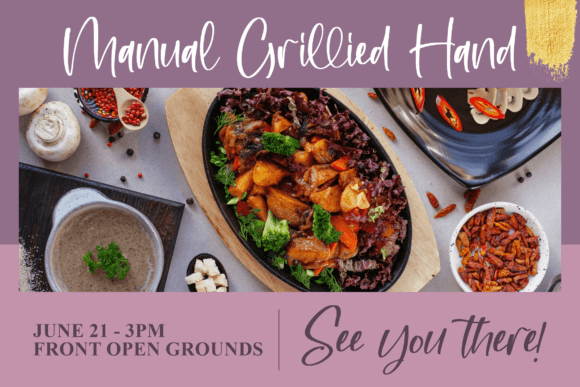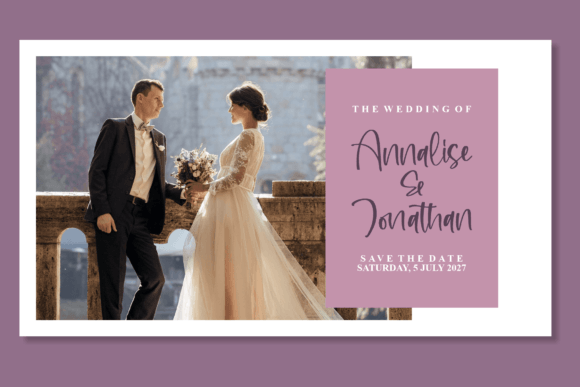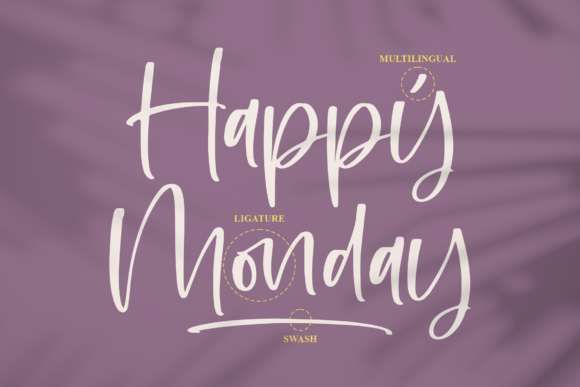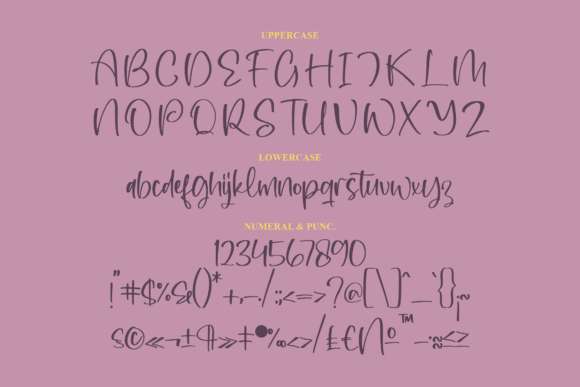
About Most Somedays Font
“Most Somedays” is a charming and elegant handwritten signature script font that exudes a sweet and romantic vibe. Its cursive and flowing strokes add a touch of grace to any design, making it a perfect choice for a wide array of creative projects. This font’s gentle and joyful demeanor enhances the overall aesthetic, creating a sense of warmth and intimacy.
Whether used for branding, logos, wedding-related materials, greeting cards, fashion projects, lookbooks, or marketing promotions, “Most Somedays” imparts a sense of sophistication while maintaining a casual and approachable appeal. Its versatility allows it to effortlessly transition from formal to informal contexts, making it suitable for a variety of design applications.
The font’s PUA encoding grants you access to a plethora of amazing glyphs and ligatures, providing creative freedom to customize your designs with unique and intricate elements. By incorporating these special characters, you can enhance the visual appeal of your projects and infuse them with a personalized touch.
“Most Somedays” is the perfect choice when you want to add a fancy yet casual elegance to your creative endeavors. Its romantic and joyful essence shines through, making your designs come to life with a touch of sophistication. Embrace the charm of “Most Somedays,” and let its delightful presence elevate your branding, marketing materials, and various other projects, leaving a lasting impression on your audience.